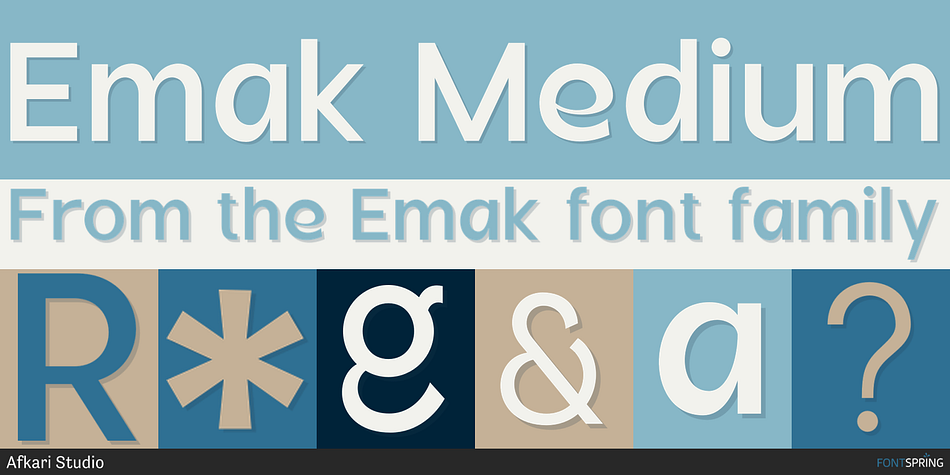
Emak Medium
Emak is a sans serif font family. This typeface has eighteen styles and was published by Afkari Studio.
Emak is a bold and versatile sans-serif font family designed for modern and dynamic typography. With 18 weights ranging from Thin to Black, along with Slant styles and a Variable Font option, Emak provides ultimate flexibility for designers. Whether you’re crafting striking headlines, sleek branding, or engaging digital content, this typeface delivers both power and precision.
Emak is designed to be both functional and expressive. Its clean, modern lines make it a great choice for professional branding, while its slanted styles and special alternates allow for more artistic and dynamic typography. This balance makes Emak an excellent option for a wide range of creative fields, including advertising, editorial design, packaging, and digital media.